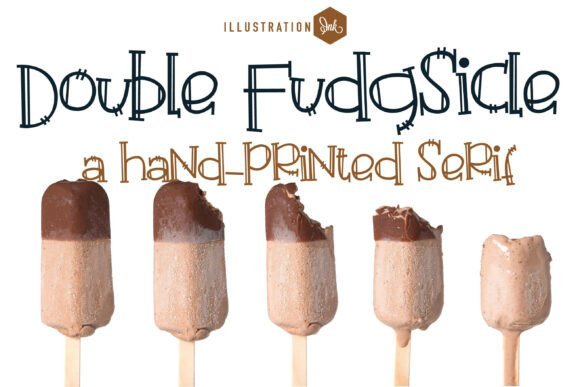
Summer Vibes in Every Letter: The Double Fudgiscle Font
Remember the joy of licking a cold Fudgsicle on a sweltering summer day? The taste, the texture, the memories – it’s a feeling that’s hard to replicate. But what if we told you that you can capture that essence in your designs? Introducing the Double Fudgiscle Font, a whimsical display typeface that’s sure to transport your audience to a world of nostalgia and handcrafted charm.
This delightful font is more than just a pretty face – it’s a powerful tool for designers who want to add a touch of personality to their projects. With its unique, double-lined letterforms and playful geometric accents, the Double Fudgiscle Font is perfect for independent ice cream parlor branding, artisanal confectionery packaging, and quirky children’s book titles.
Double Fudgiscle Font Key Features
- Unique Characteristic: Double Fudgiscle Font features an exclusive ‘Fudgiscle’ ligature, which is a distinctive combination of letters that adds a touch of whimsy and personality to any text.
- Font Style: Double Fudgiscle Font comes in three distinct styles: Regular, Bold, and Italic, allowing designers to experiment with different looks and moods.
Double Fudgiscle Font Review
I recently had the chance to work with the Double Fudgiscle Font, and I must say, it’s a unique addition to any design project. ✨ One of the things that stood out to me was the font’s versatility – it can easily be used for both playful and serious projects, depending on the context.
- ✨ Legibility: Despite its quirky appearance, the font is surprisingly easy to read, even at small font sizes.
- ✨ Creativity: The font’s unique design makes it a great choice for projects that need a bit of flair.
- ⚠️ Overuse: The font’s quirky design can quickly become overwhelming if overused – it’s essential to balance its use with other design elements.
Overall, I’d say the Double Fudgiscle Font is a solid choice for designers who want to add some personality to their projects. While it may not be perfect, its unique design and versatility make it a great addition to any design toolbox.